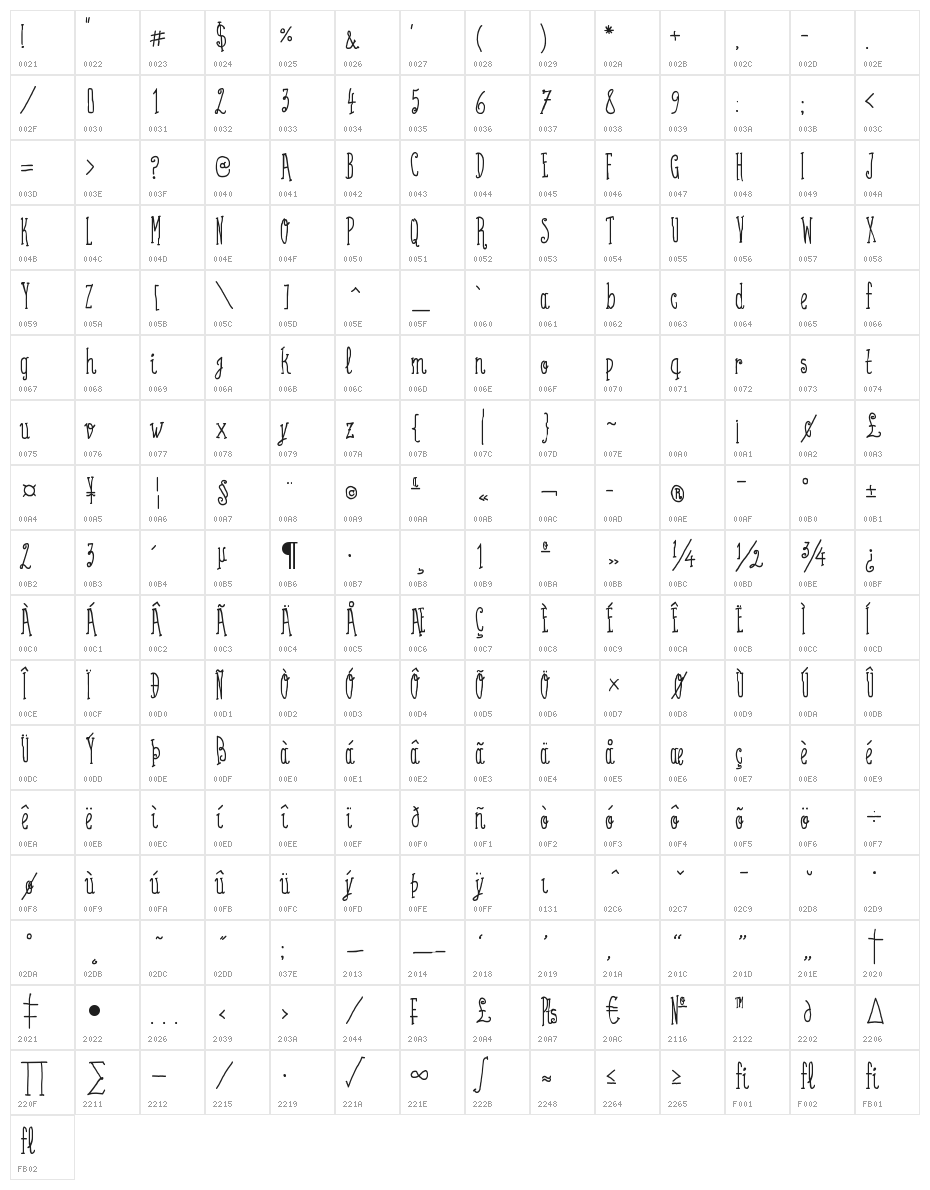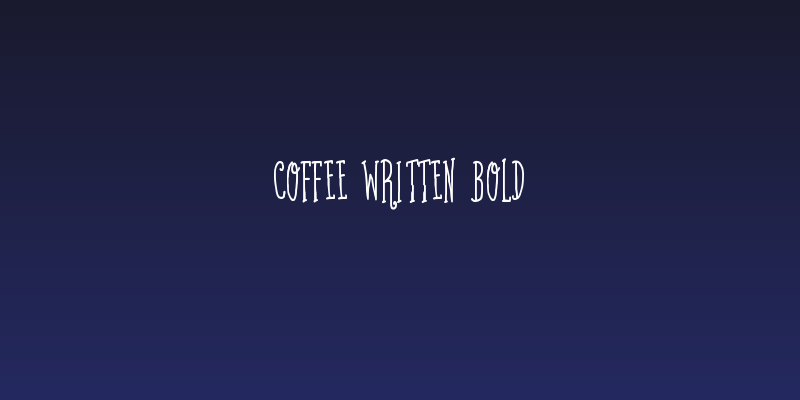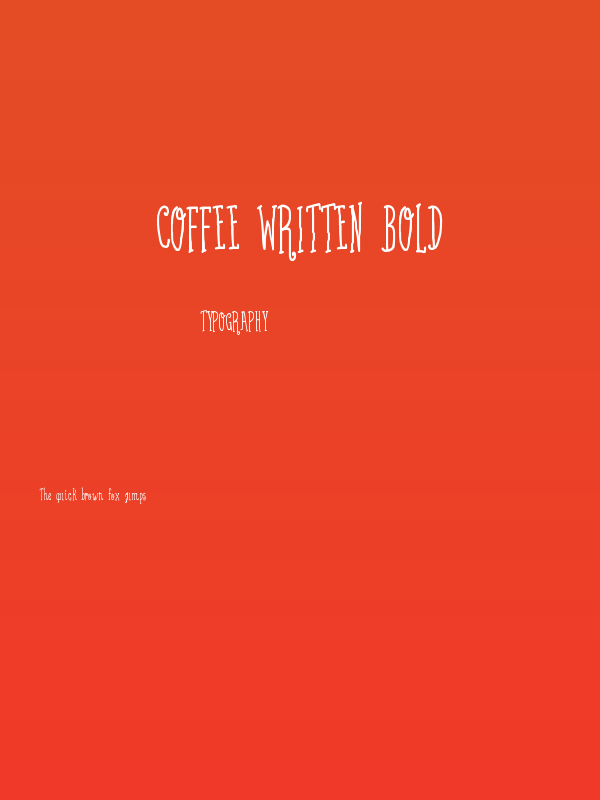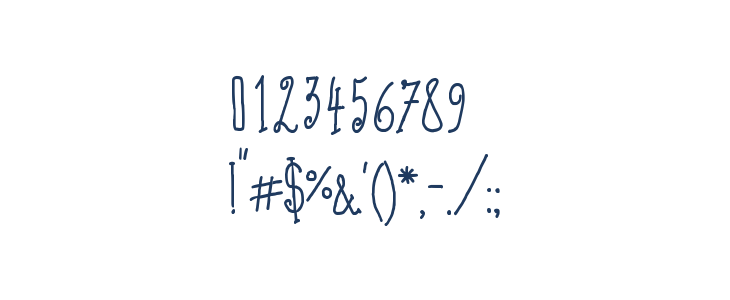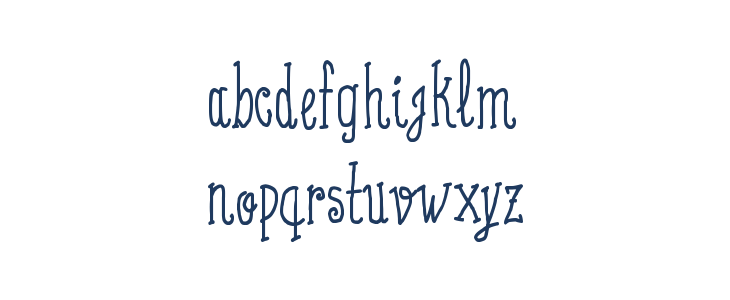
Coffee Written Bold Font
Coffee Written Bold Description
This font features a playful and whimsical handwritten style, characterized by its tall, narrow letters with a slight slant. The strokes are uneven, adding a casual and organic feel. The uppercase letters are elongated, while the lowercase letters maintain a consistent height, creating a harmonious balance. Numbers and special characters follow the same playful aesthetic, making the font versatile for various creative applications. The font's unique charm lies in its imperfect lines and quirky details, which evoke a sense of warmth and approachability.